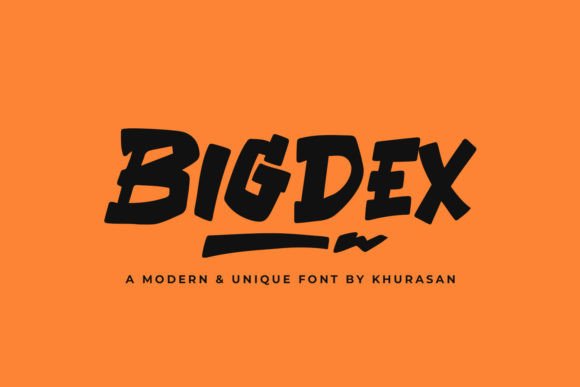
In a world craving originality, Bigdex Font emerges as a beacon of bold expression, inviting you to step into a realm where creativity reigns supreme. This modern, bold display font is not just a collection of letters; it's a passport to a universe of captivating designs, ready to transform your ideas into tangible masterpieces.
Unleash the Power of Personality:
With Bigdex Font, your designs will radiate a distinct personality that sets them apart from the ordinary. Its striking presence commands attention, drawing eyes to your posters, logos, magazines, book covers, and banners. Whether you're a seasoned designer or just starting your creative journey, Bigdex Font empowers you to make a statement with every project.
Craft Unforgettable Designs:
Step into a world where imagination knows no bounds. Bigdex Font's versatility knows no limits, adapting seamlessly to a myriad of creative endeavors. It's the perfect companion for crafting logos that leave a lasting impression, posters that ignite conversations, and book covers that transport readers to new realms. Unleash your inner artist and let Bigdex Font guide you to design greatness.
Ignite Your Creativity:
With Bigdex Font, creativity becomes a boundless playground. Its bold strokes and quirky handwritten style ignite a spark of inspiration, propelling your designs to new heights. Whether you're a graphic designer, a passionate blogger, or an entrepreneur seeking a unique brand identity, Bigdex Font is your creative catalyst, ready to transform your visions into reality.
Dare to Be Original:
In a sea of conformity, originality is the ultimate currency. Bigdex Font empowers you to break free from the mundane and embrace your individuality. Its distinctive character adds a touch of intrigue to your designs, captivating audiences with its unconventional charm. Dare to be different, dare to stand out, and let Bigdex Font be your ally in the pursuit of originality.